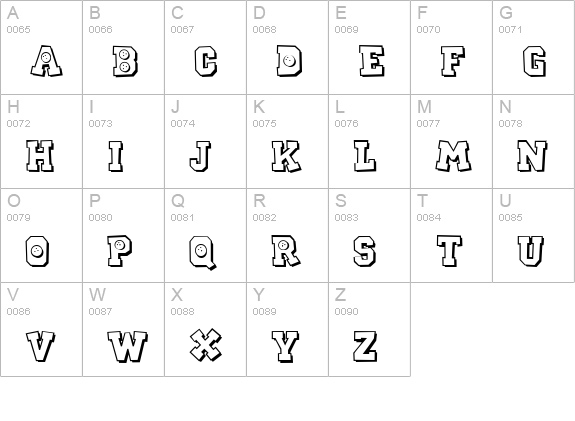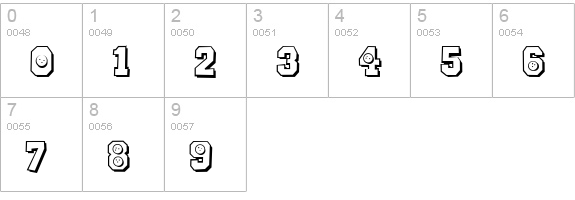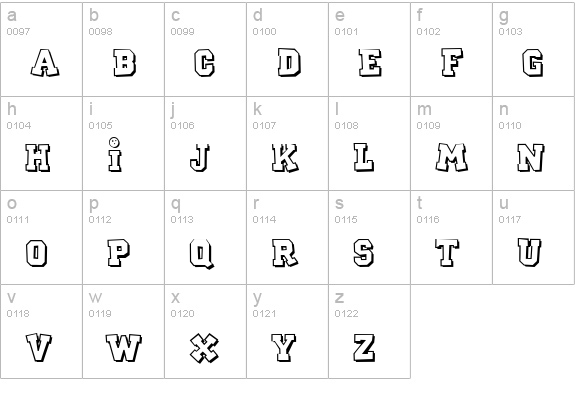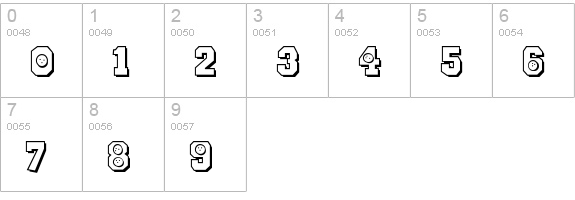
CK Sports Bowling Font Details
Introducing CK Sports Bowling font, a striking and dynamic typeface perfect for sports-related design projects. With its bold letterforms and energetic style, this font captures the essence of competitive spirit and athletic excellence. Whether you're designing posters, banners, or team logos, CK Sports Bowling font will add a touch of excitement and vigor to your creations. What's even better is that CK Sports Bowling font is available for free download at FontsMarket.com. So go ahead and grab this fantastic font to elevate your sports-themed designs to the next level. Let your creativity shine with CK Sports Bowling font and make a powerful statement with every letter.